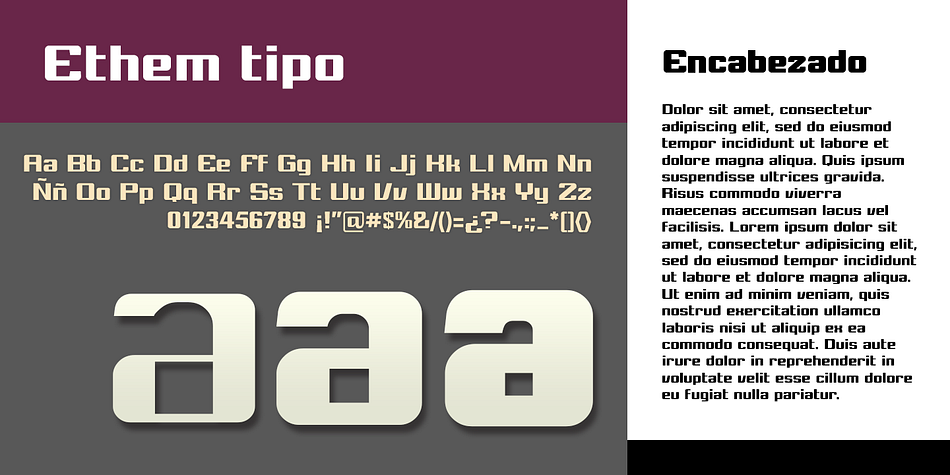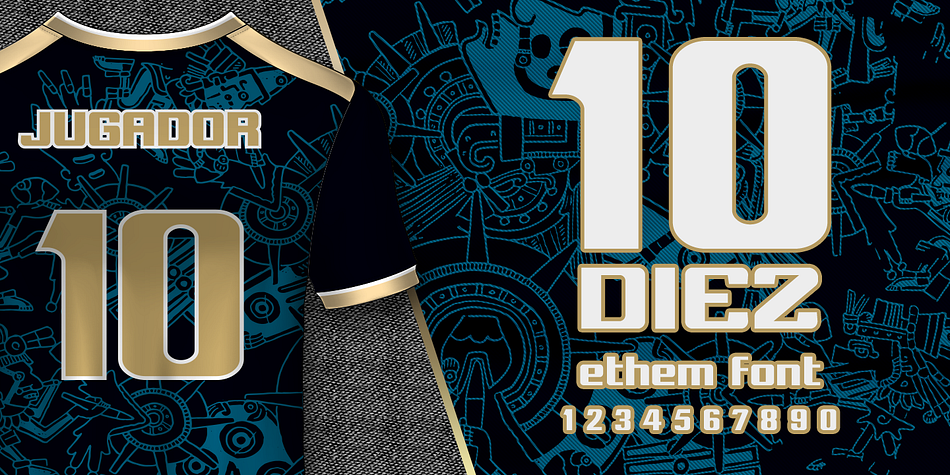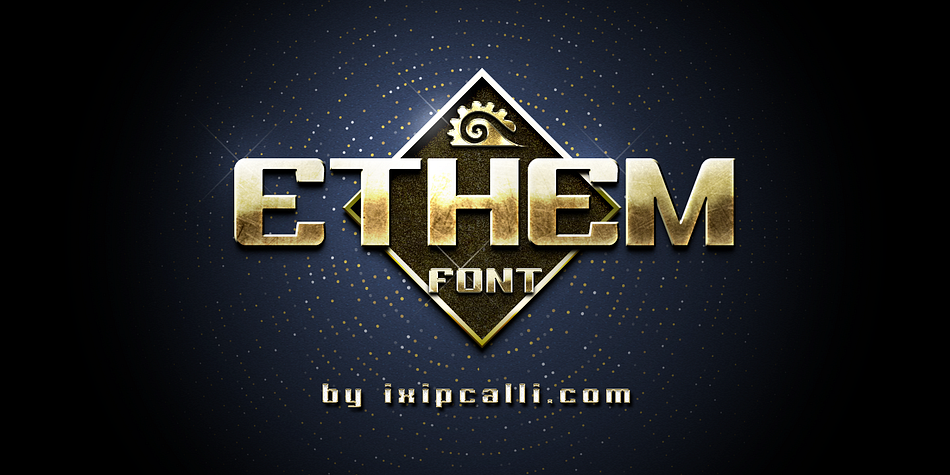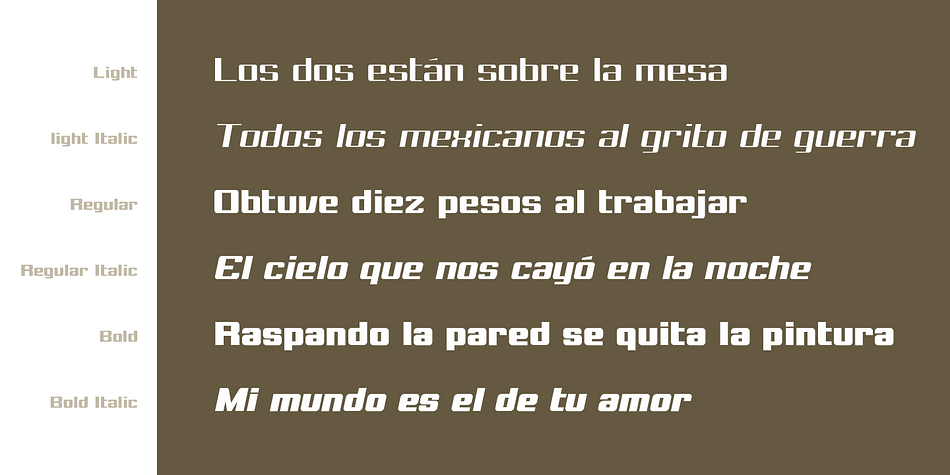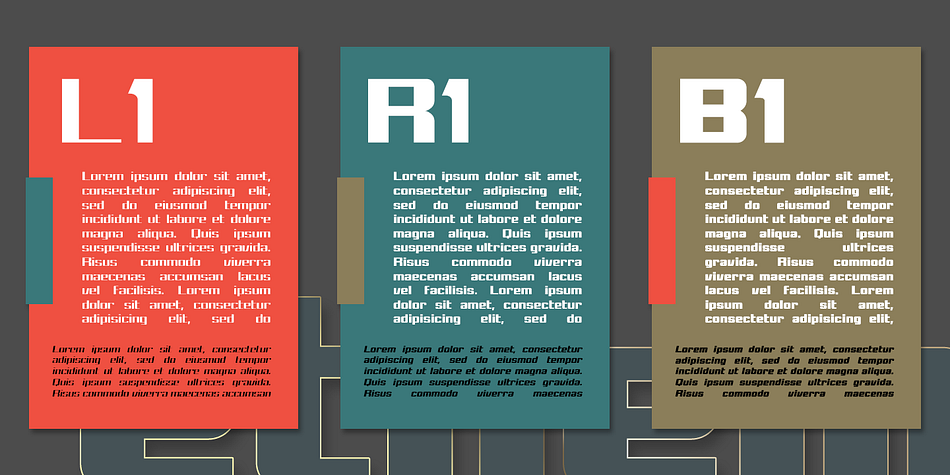
Ethem
Designed by Francisco Arellano, Ethem is a display sans font family. This typeface has six styles and was published by Ixipcalli.
Ethem is a semi-geometric typeface, ideal for posters and flyers. Provides three weights: light, regular, and bold without leaving out the italics of each. The Ethem font family provides six typefaces. If you need a strong, prominent or dominant typeface in your project, Ethem font is the ideal typeface.
Foundry Ixipcalli
Designer Francisco Arellano